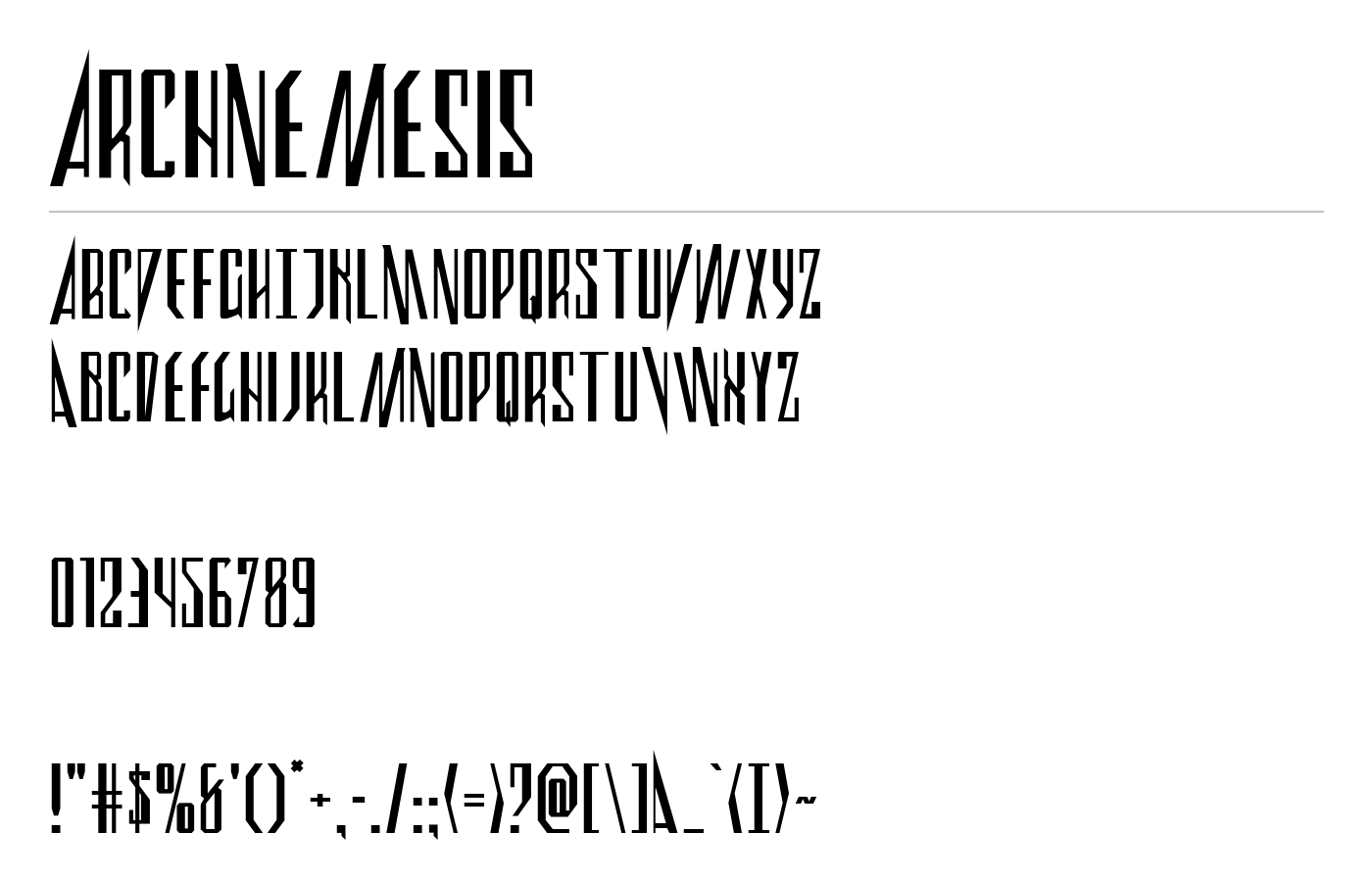
Archnemesis is a narrow, condensed sans serif font with a sharp, angular design that gives it a bold and edgy personality. Its tall letterforms and high contrast between thick and thin strokes make it ideal for striking headlines, logos, and branding where a modern, dynamic look is desired. This font works best in contexts that require impact and a sense of intensity, such as fashion, entertainment, and tech industries.
Archnemesis Font
About Archnemesis Font